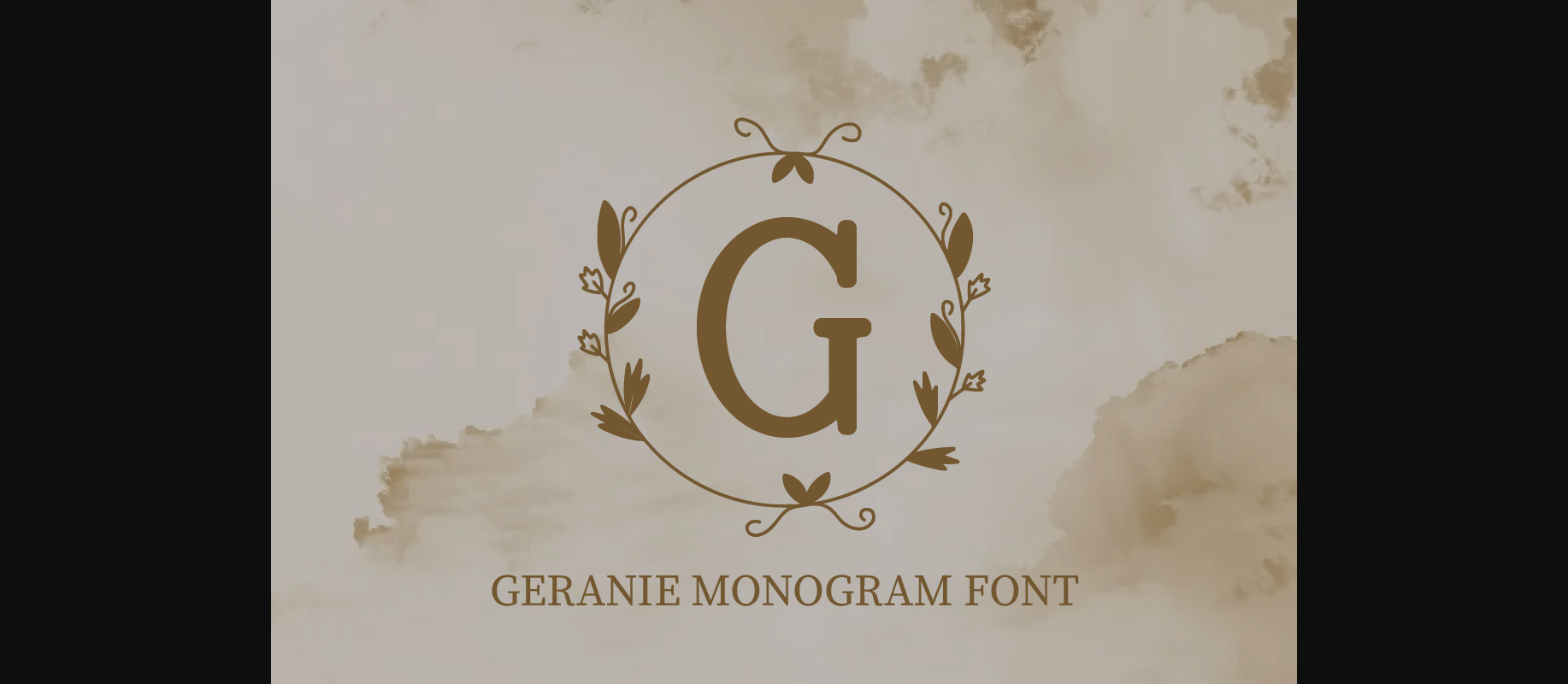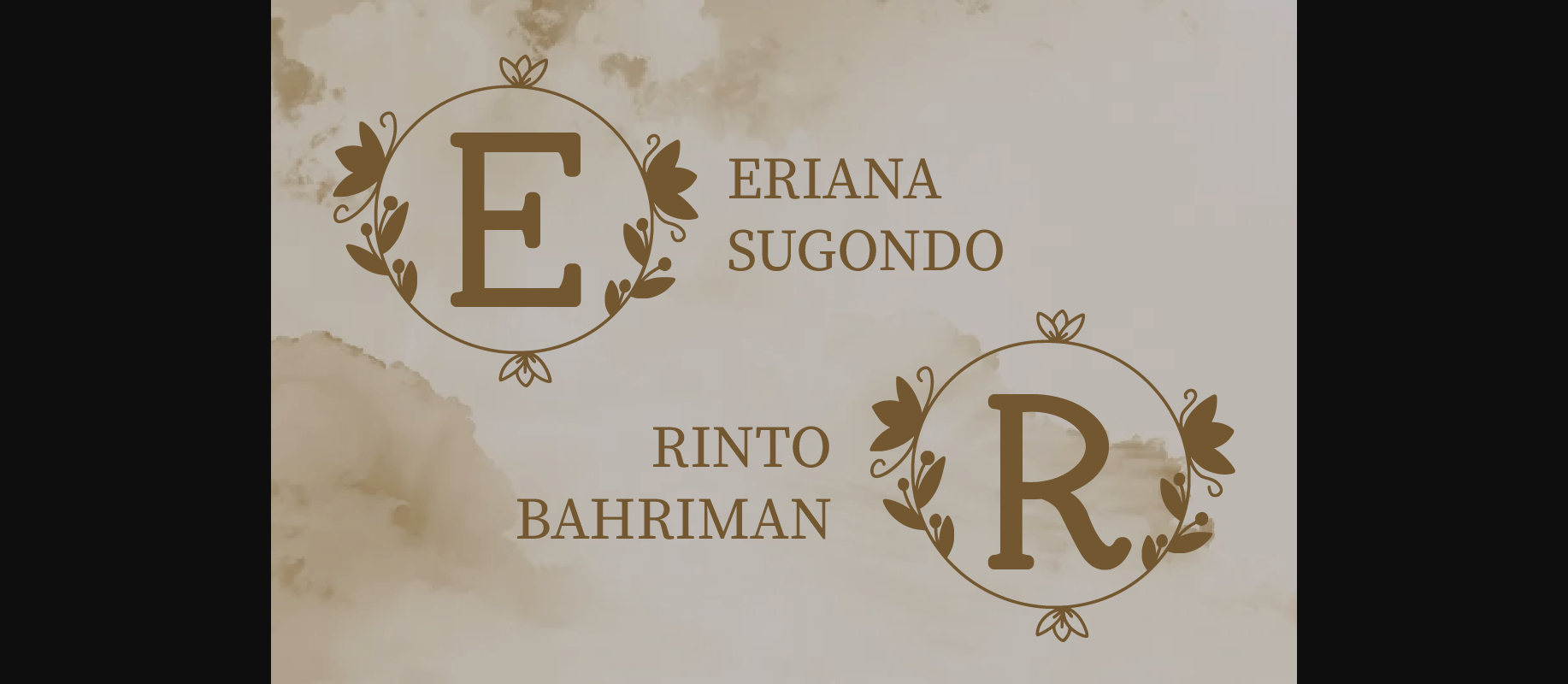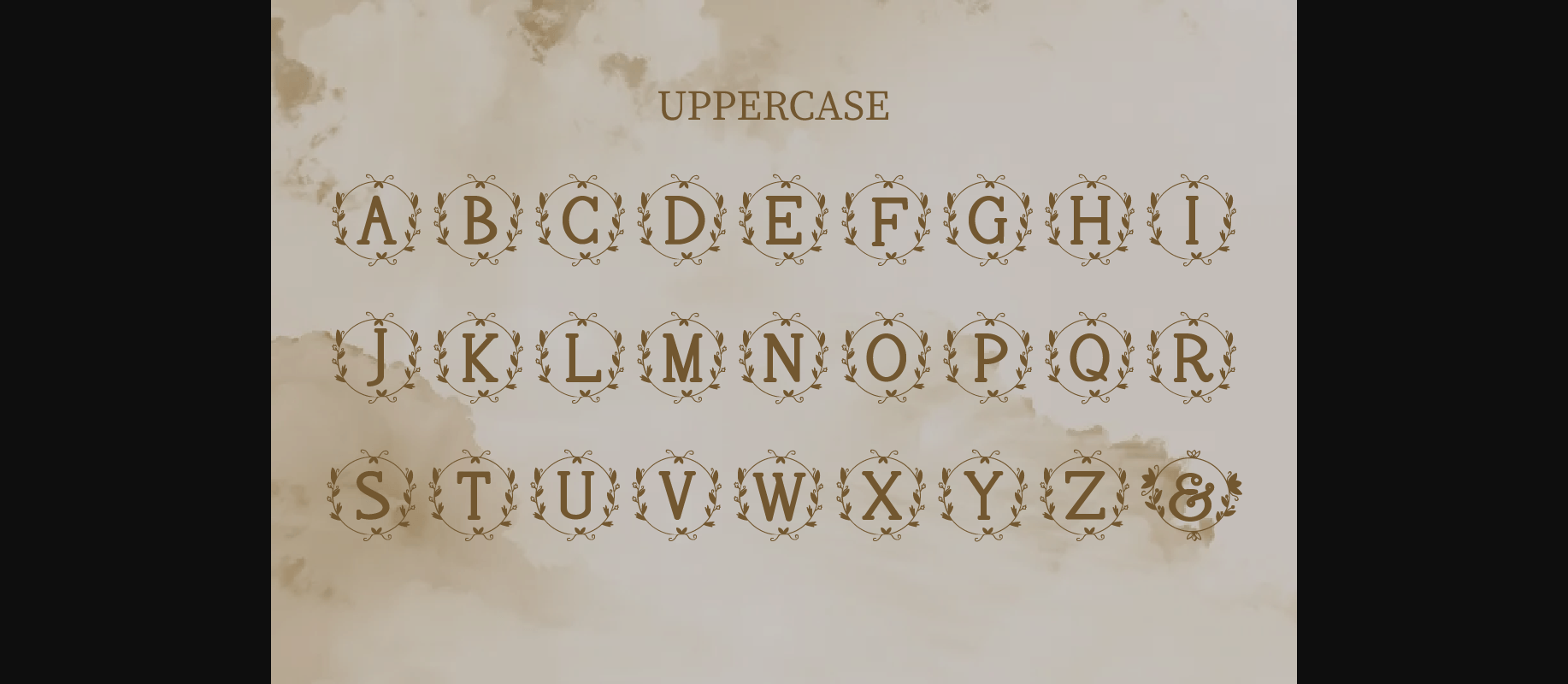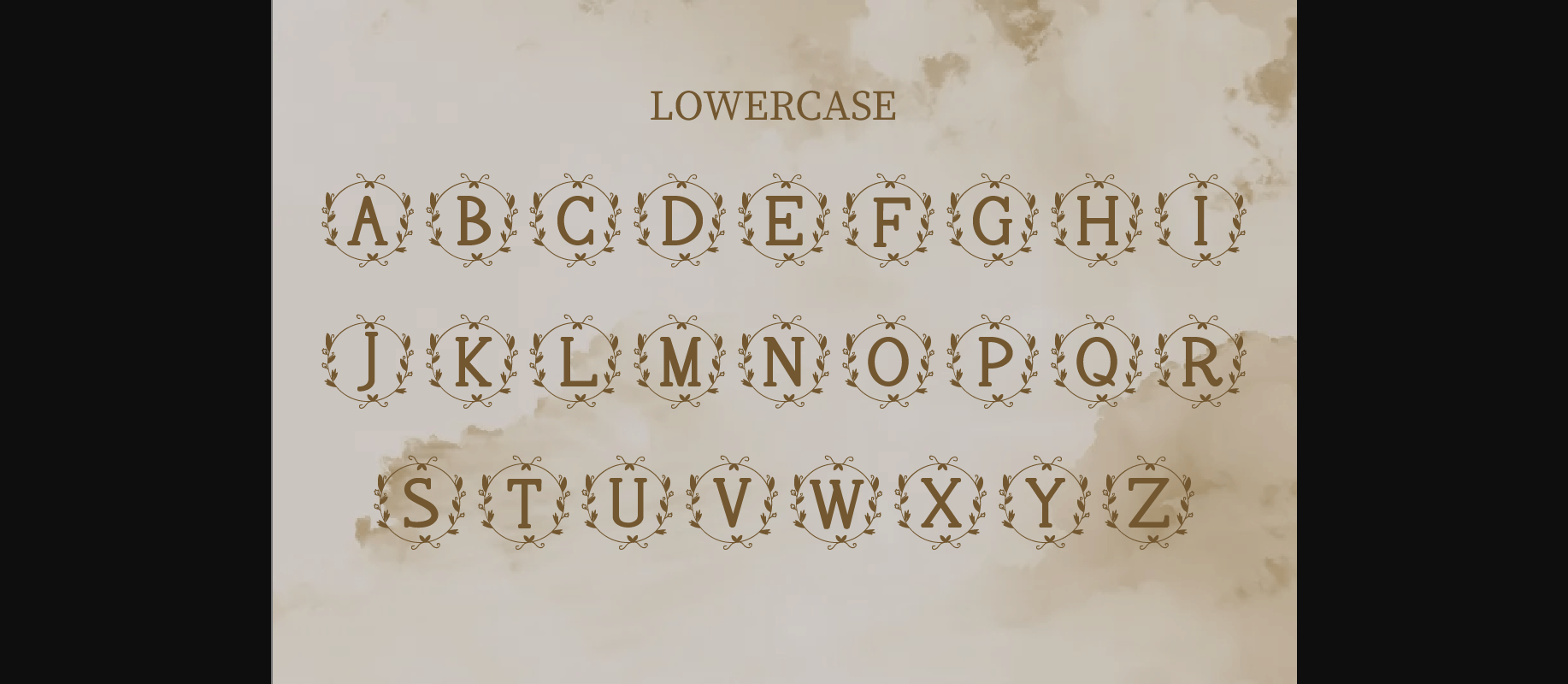
Geranie Font
About Geranie Font
Geranie is a beautiful monogram font with wreath decorations. This font can enhance your designs such as invitations, weddings, engagements, logos, branding, and many others.